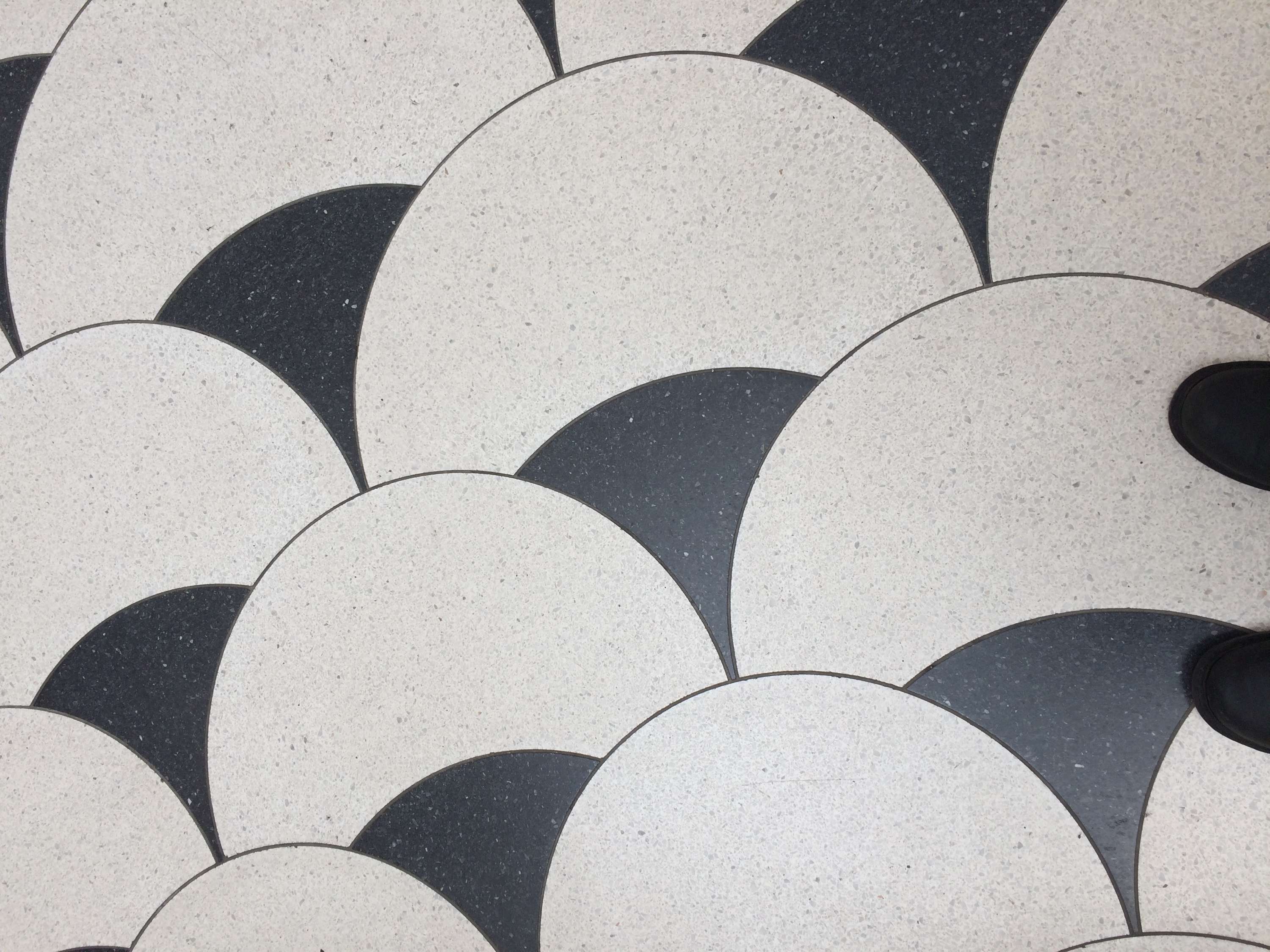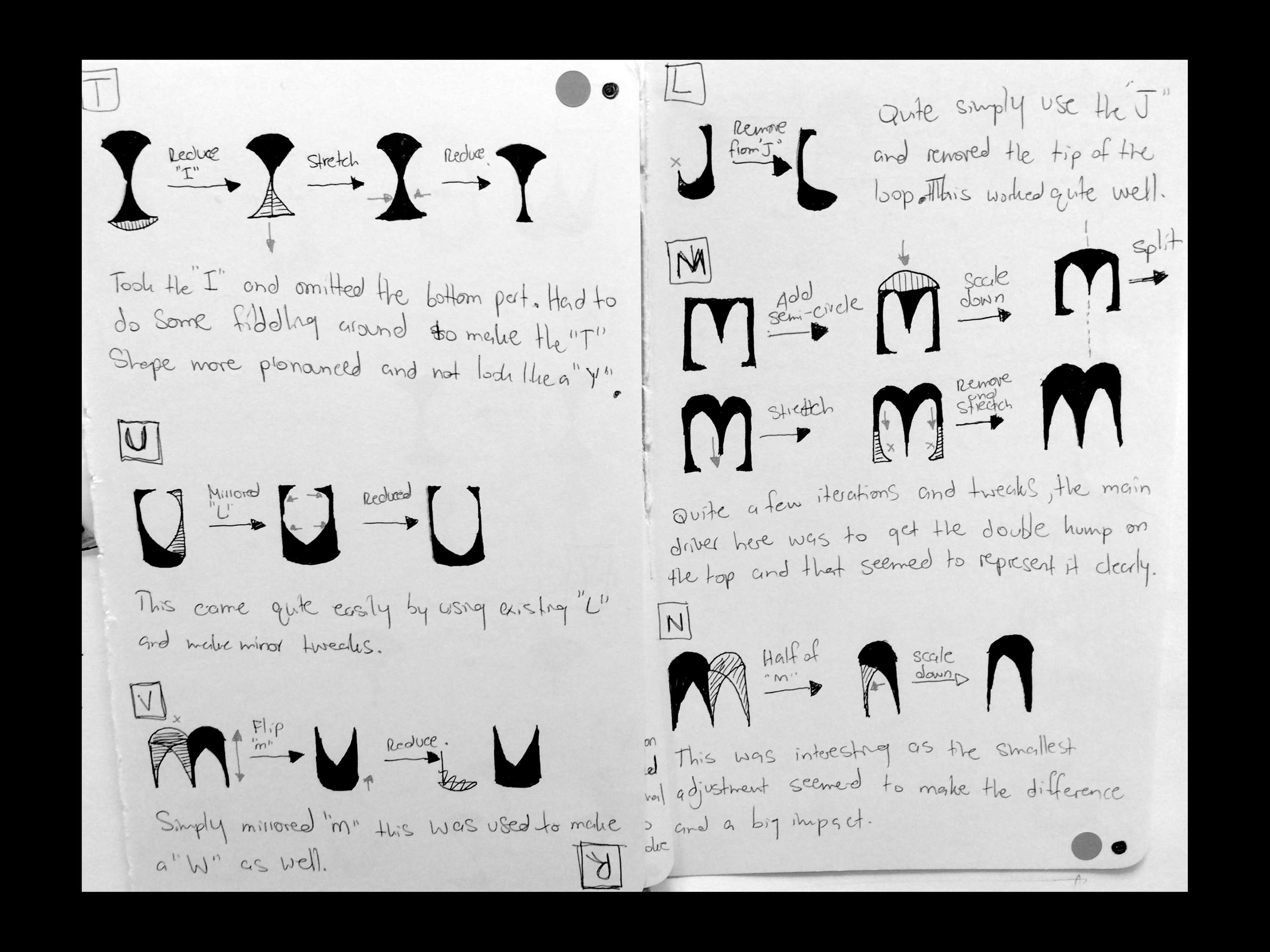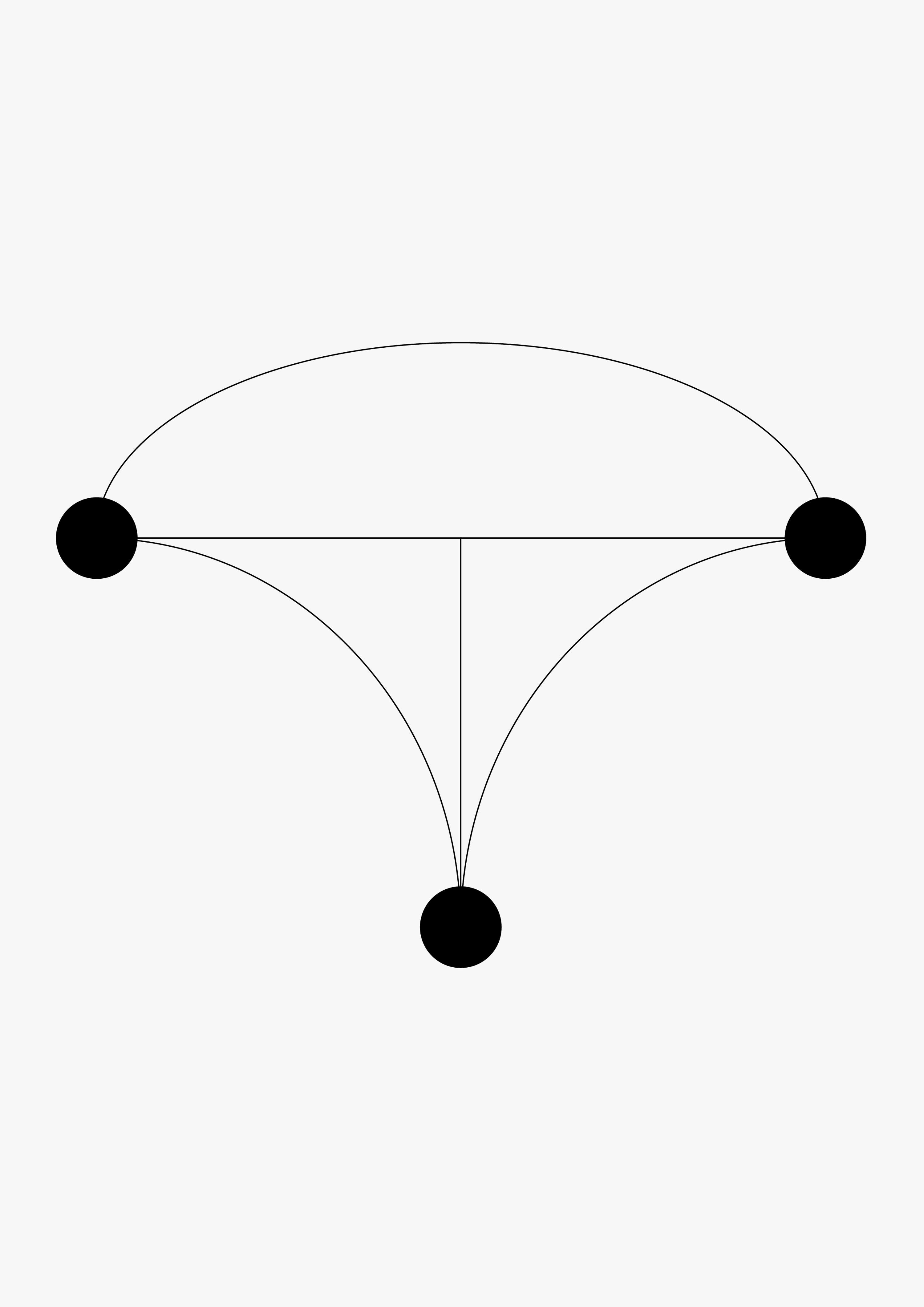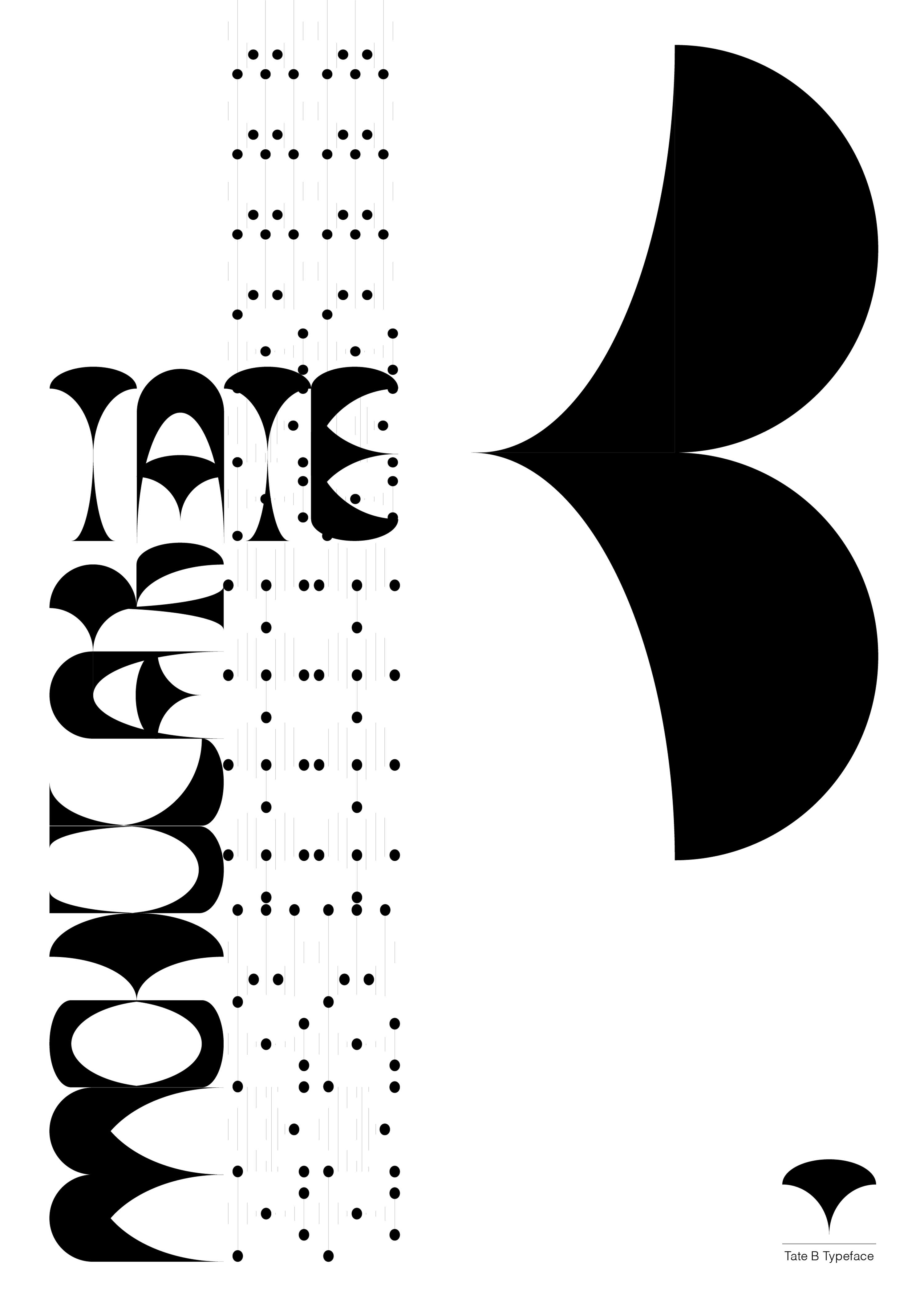
Tate B Typeface
For the typeface I took inspiration from the mosaic floor pattern at the Tate Britain. I created a skeleton version from the black part of the pattern and this was used as the backbone for designing each letter. These were refined by hand through many iterations before finalising them digitally.